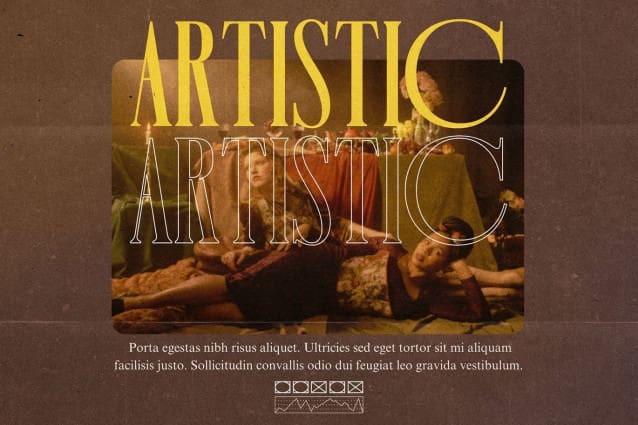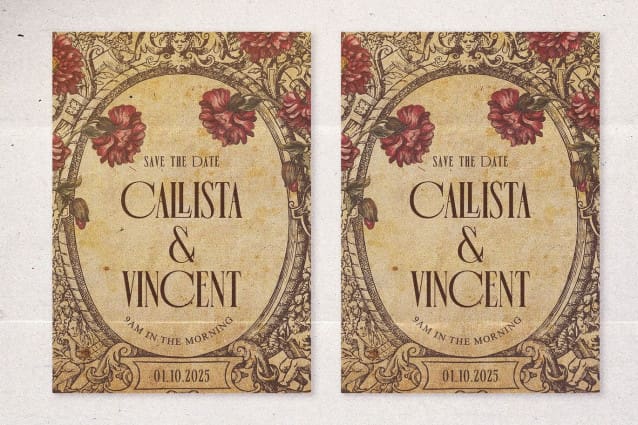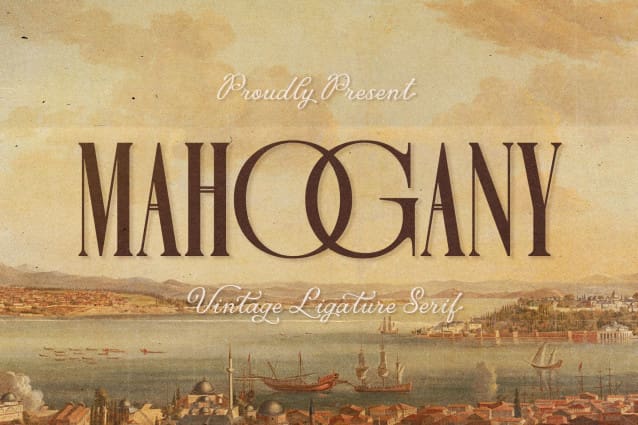
Mahogany Vintage Font
Mahogany Vintage Font is a refined condensed serif font that radiates elegance and luxury. With its distinctive style, this font is the perfect choice for creating exquisite logotypes, eye-catching magazine layouts, and more. Designed to enhance your projects, Mahogany Vintage Font features a versatile collection of alternates and ligatures, making it the perfect solution for creating standout designs with a sophisticated touch. Whether you’re working on high-end branding or editorial masterpieces, Mahogany adds a polished, timeless finish to any creative project.